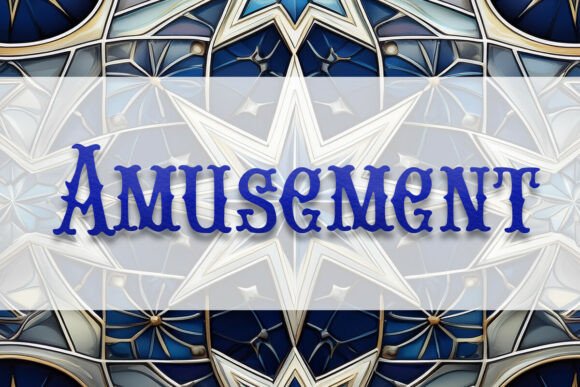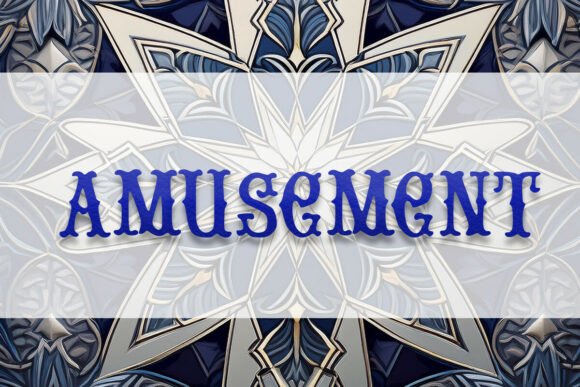
Unlock Endless Creativity with Amusement Font: Elevate Your Designs to Extraordinary
In the world of design, the right font can make all the difference. It can elevate your project from ordinary to extraordinary, adding a touch of personality and flair that sets it apart. For designers and crafters looking to inject a dose of fun and creativity into their work, the Amusement font is an ideal choice. Perfectly crafted to add an extra layer of style to various projects, Amusement font strikes the ideal balance between style and legibility, making it a versatile tool for a wide range of applications.
The Perfect Blend of Style and Legibility
Amusement typeface is not just another font; it’s a creative companion designed to bring out the best in your designs. Whether you’re working on a magazine layout that needs a playful touch, crafting personalized SVG files for cutting machines, or creating heartwarming greeting cards, Amusement font offers limitless creative opportunities. Its unique charm and readability ensure that your message is conveyed with style, making it perfect for projects where you want to leave a lasting impression.
Endless Applications for Amusement Font
The versatility of Amusement font is one of its most compelling features. Here are just a few ways you can use this fantastic font to elevate your designs:
- T-shirts and Apparel: Add a playful and trendy touch to your custom apparel designs. Amusement font is perfect for creating eye-catching slogans, fun quotes, or brand names that stand out.
- Stickers and Decals: Create personalized stickers and decals for laptops, water bottles, or any other surface. The Amusement font’s clarity and charm make it ideal for small and large designs alike.
- Branding: Give your brand a unique voice with Amusement font. Use it for logos, packaging, or marketing materials to add a touch of whimsy and approachability.
- Magazine Layouts: Add a playful element to your magazine or newsletter with Amusement font. It’s perfect for headings, pull quotes, or any section that needs a bit of flair.
- SVG Files: Craft personalized SVG files for cutting machines. Amusement font cuts beautifully, making it ideal for intricate designs and custom projects.
- Greeting Cards: Create heartwarming and personalized greeting cards for any occasion. The Amusement font adds a touch of warmth and personality to your messages.
Amusement Font in Cricut Projects
For crafters and Cricut enthusiasts, Amusement font is a fantastic addition to your design toolkit. It can spice up posters, elevate your social media presence, and add a professional touch to your DIY projects. Whether you’re creating custom vinyl decals, iron-on designs, or paper crafts, Amusement font’s compatibility with cutting machines makes it incredibly versatile.
Elevate Your Social Media Presence
In today’s digital age, standing out on social media is crucial. Amusement font can help you achieve that. Use it to create engaging graphics, catchy headlines, or informative infographics. Its unique style and legibility ensure that your content not only grabs attention but also communicates your message effectively.
Creative Freedom with Amusement Font
What sets Amusement font apart is the creative freedom it offers. It’s designed to turn ‘more’ into ‘extraordinary’. With Amusement, you can experiment with different design elements, colors, and layouts to create something truly unique. Whether you’re a professional designer or a hobbyist, this font encourages you to push boundaries and explore new creative horizons.
Amusement font is more than just a typeface; it’s a creative tool designed to bring your ideas to life. Its perfect blend of style and legibility, coupled with its versatility, makes it an invaluable asset for designers and crafters alike. Whether you’re looking to add a playful touch to your T-shirts, create engaging social media content, or craft personalized greeting cards, Amusement font offers endless possibilities. Unlock your creative potential and elevate your designs to extraordinary with Amusement font.